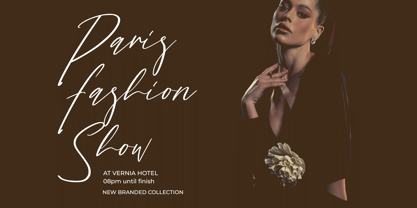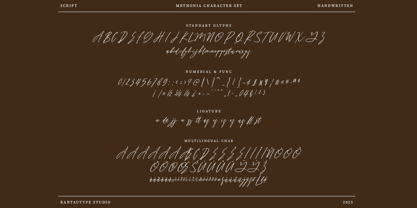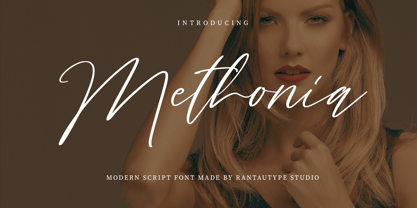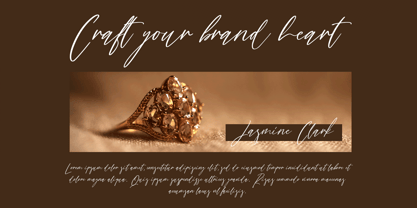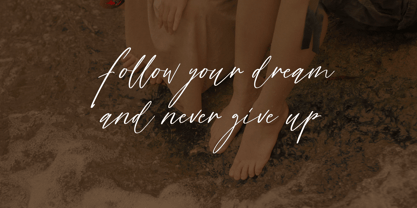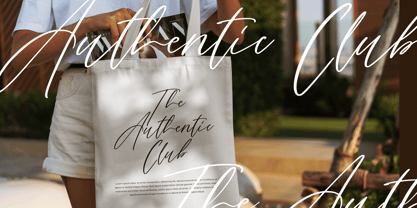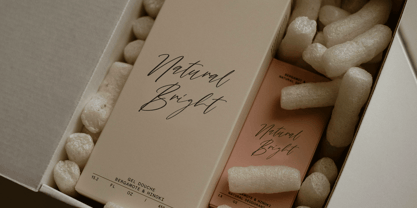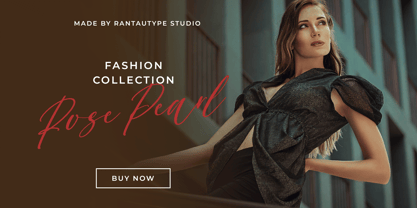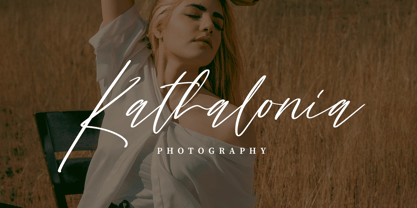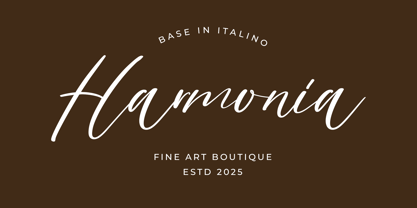
Methonia
by RantauType
The Methonia Font Family was designed by Yudi Pratama Chandra and published by RantauType. Methonia contains 1 styles. More about this family
Methonia is modern handwritten font with beauty curve to make you design project out standing. Methonia is a perfectly choice for any creative endeavor, creating, modern, lifestyle design such as logotype, title, cover, branding, invitations, wedding designs, display and magazine, social media posts, advertisements, printed quotes, product packaging, corporate brand, product designs, labels, photography, watermarks, special events and any other project with modern touch.
Designers: Yudi Pratama Chandra
Foundry: RantauType